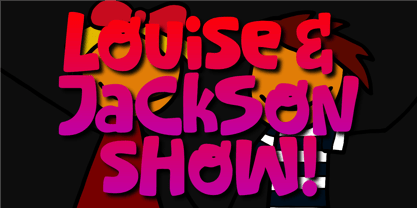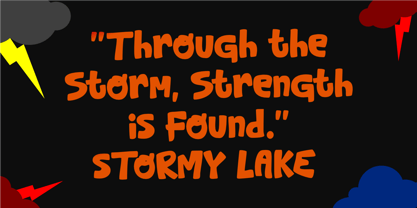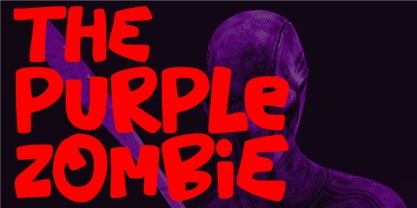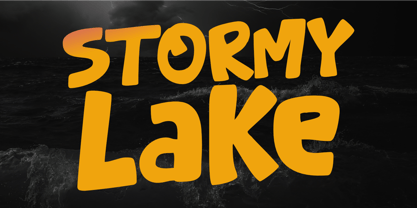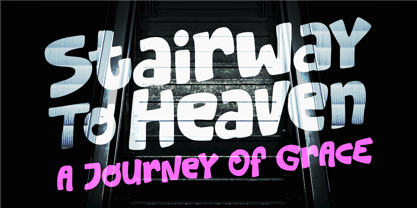
Stormy Lake
by Epiclinez
The Stormy Lake Font Family was designed by Aldy Sidik and published by Epiclinez. Stormy Lake contains 1 styles. More about this family
Stormy Lake is a fun and bold cartoon font that’s perfect for adding a playful touch to your designs. Its rounded, cheerful letters are great for game titles, movie posters, logos, and ads. The thick, bold style helps your text stand out, making it easy to read and eye-catching. Whether you’re working on a project for kids or something that needs a light and fun vibe, Stormy Lake brings a sense of adventure and joy. It’s a versatile font that works well for any creative project where you want to make a big, playful impact.
Designers: Aldy Sidik
Foundry: Epiclinez